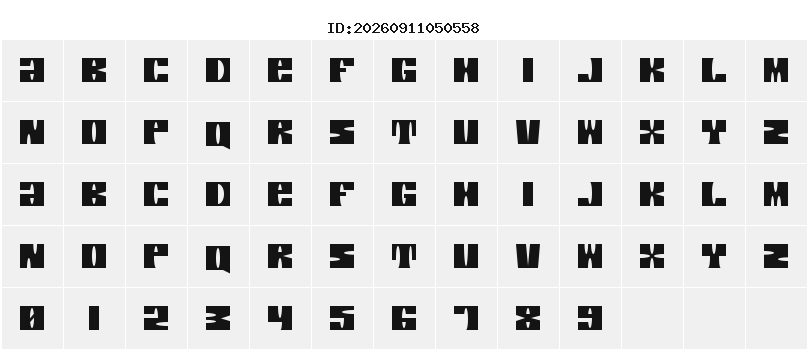
Velvet Illusions Preview
• Font Name: Velvet Illusions
• Full Font Name: Velvet Illusions
About Velvet Illusions.ttf
Velvet Illusions.ttf is a modern, elegant sans-serif font designed for ultimate readability and visual harmony. Perfect for branding, headlines, web design, and print materials.